Celebrate March 17 with font styles that bring Irish charm to your projects. From Celtic uncials and pub-label serifs to playful kid-friendly lettering and sleek modern sans, the right type will make shirts, invites, signs, and printables feel perfectly on theme.
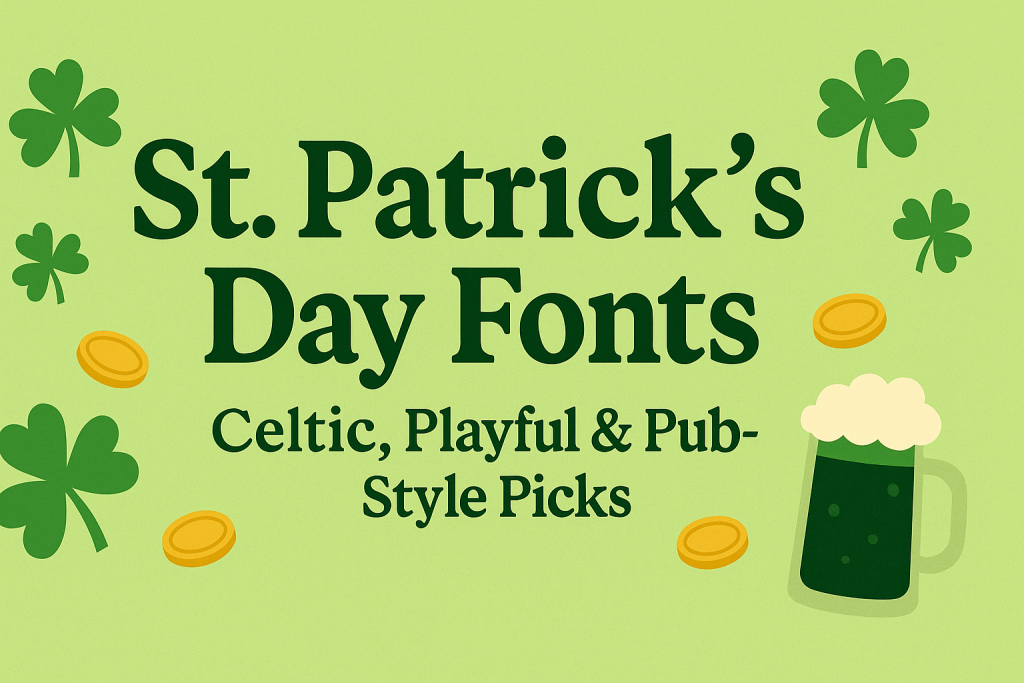
Best St. Patrick’s Day Font Styles (What Works & Why)
Celtic & Gaelic Display
Uncial and Gaelic-inspired letterforms instantly read as Irish – great for headlines, posters, and party signage. Look for wedge-shaped strokes, rustic curves, and knotwork alternates.
Try searches:
- Celtic uncial – classic Irish manuscript look
- Gaelic display – bold heritage headlines
- Irish knot font – decorative knot & interlace details
- Celtic calligraphy – elegant scripts for quotes & toasts
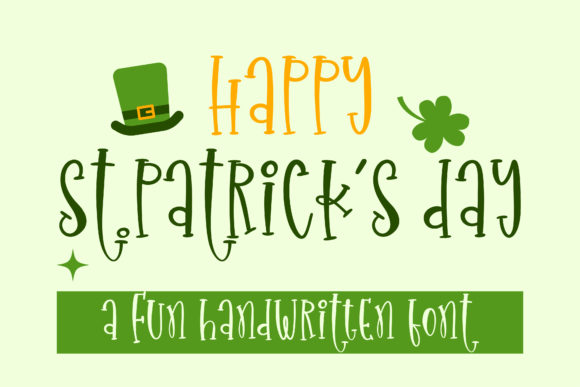
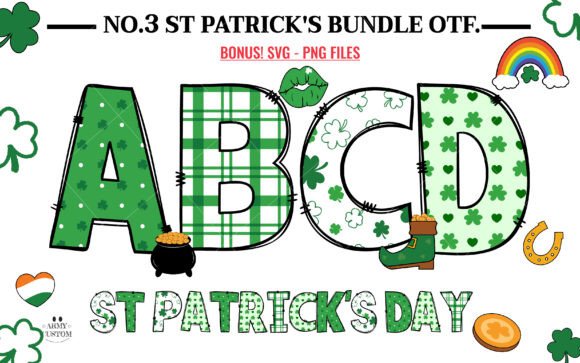
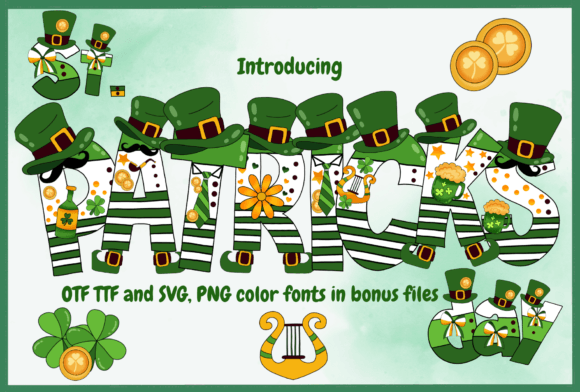
Vintage Pub & Label Serif
Timeless for beer labels, pub menus, coasters, and event tickets. Slab or engraved serifs deliver that stout-and-shamrock vibe.
Try searches:
- Irish pub serif – sturdy, bar-ready serifs
- Engraved serif – vintage menu & label looks
- Stout label font – packaging-friendly display
- Victorian serif – ornate, festival posters
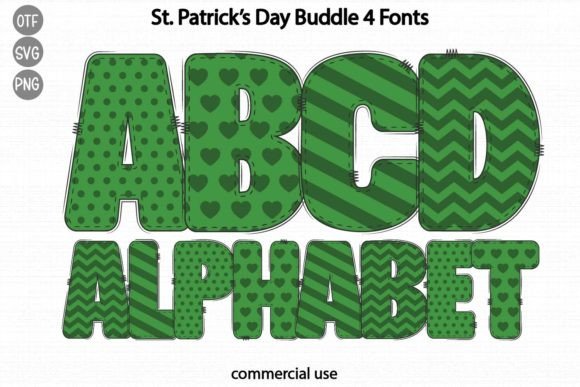
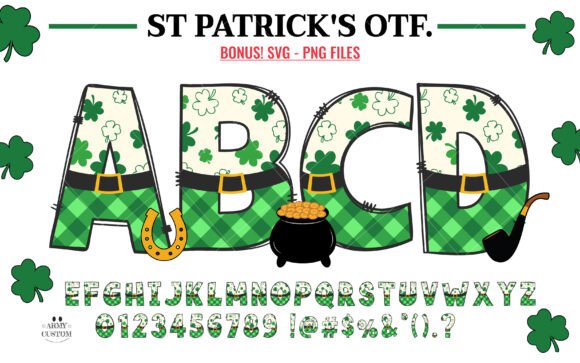
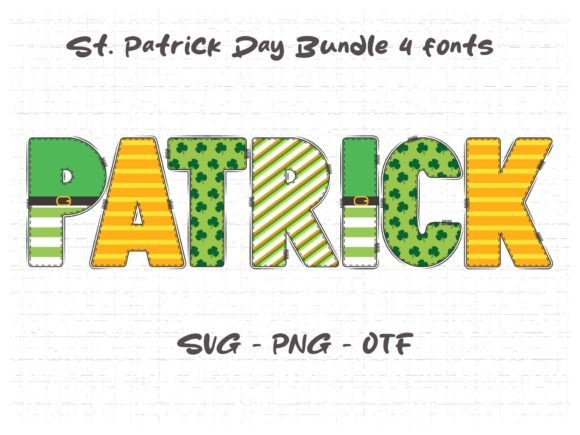
Playful & Kids-Friendly
Perfect for classroom crafts, party printables, cupcake toppers, and scavenger-hunt signs. Round, bouncy shapes feel cheerful.
Try searches:
- Shamrock font – letters with clover icons
- Leprechaun display – whimsical headings
- Playful Irish font – friendly kid fonts
- Cartoon St. Patrick’s font – stickers & badges
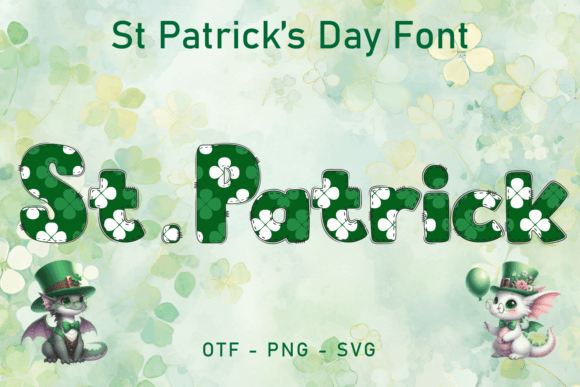
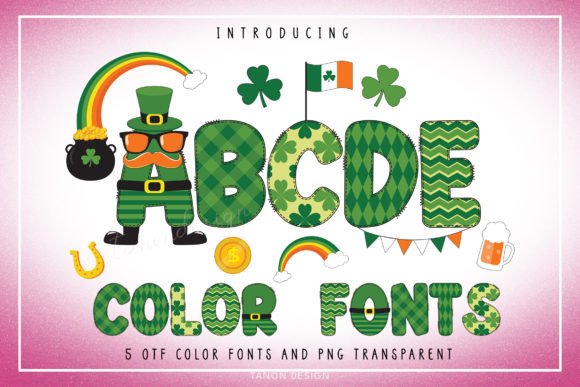
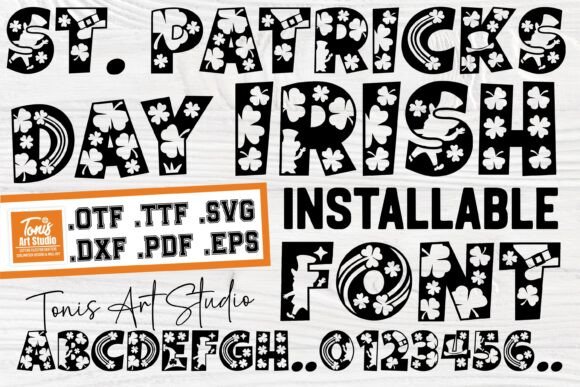
Modern / Minimal Green & Gold
Clean sans-serif typography with subtle seasonal cues – ideal for brand posts, Pinterest graphics, and chic invitations. Pair with green accents and a gold stroke or shadow.
Try searches:
- Minimal green sans – sleek & versatile
- Elegant Irish sans – menus & body copy
- Gold accent font – pair with metallic overlays
- Scandinavian sans – balanced, clean proportions
Font Pairing Recipes (Copy & Paste)
- Celtic display + Simple sans – heritage header + clean details for dates & prices
- Pub serif + Tabular numbers – menus, beer lists, and raffle tickets
- Playful display + Neutral sans – crafts & classroom printables without clutter
- Minimal sans + Subtle script – modern posts with a soft accent
Project Ideas for March
- T-shirts: “Lucky Crew,” “Kiss Me, I’m Irish,” parade teams
- Beer labels & pub signage; coasters & menu headings
- Party invites, scavenger-hunt sheets, cupcake toppers
- Classroom worksheets & coloring pages
- Instagram posts, Reels cover text, Pinterest pins
- Foil-stamped cards, gift tags, tote bags, mugs
Color Tips
- Primary: emerald, kelly green, forest
- Accents: gold, cream, charcoal
- Add clover icons, coins, ribbons, or a subtle linen texture
- Keep it legible: limit to 1 display face + 1 helper font
- OpenType: turn on alternates/ligatures for Celtic and engraved styles
Celtic/uncial for instant Irish mood, pub serifs for labels & menus, playful displays for kids’ crafts, and minimal sans for modern brand graphics.
Use a pub serif for headings and a clean sans for item descriptions and prices with tabular numbers.
Pick one expressive display face and a simple helper; keep to 2–3 colors (green + gold + neutral).